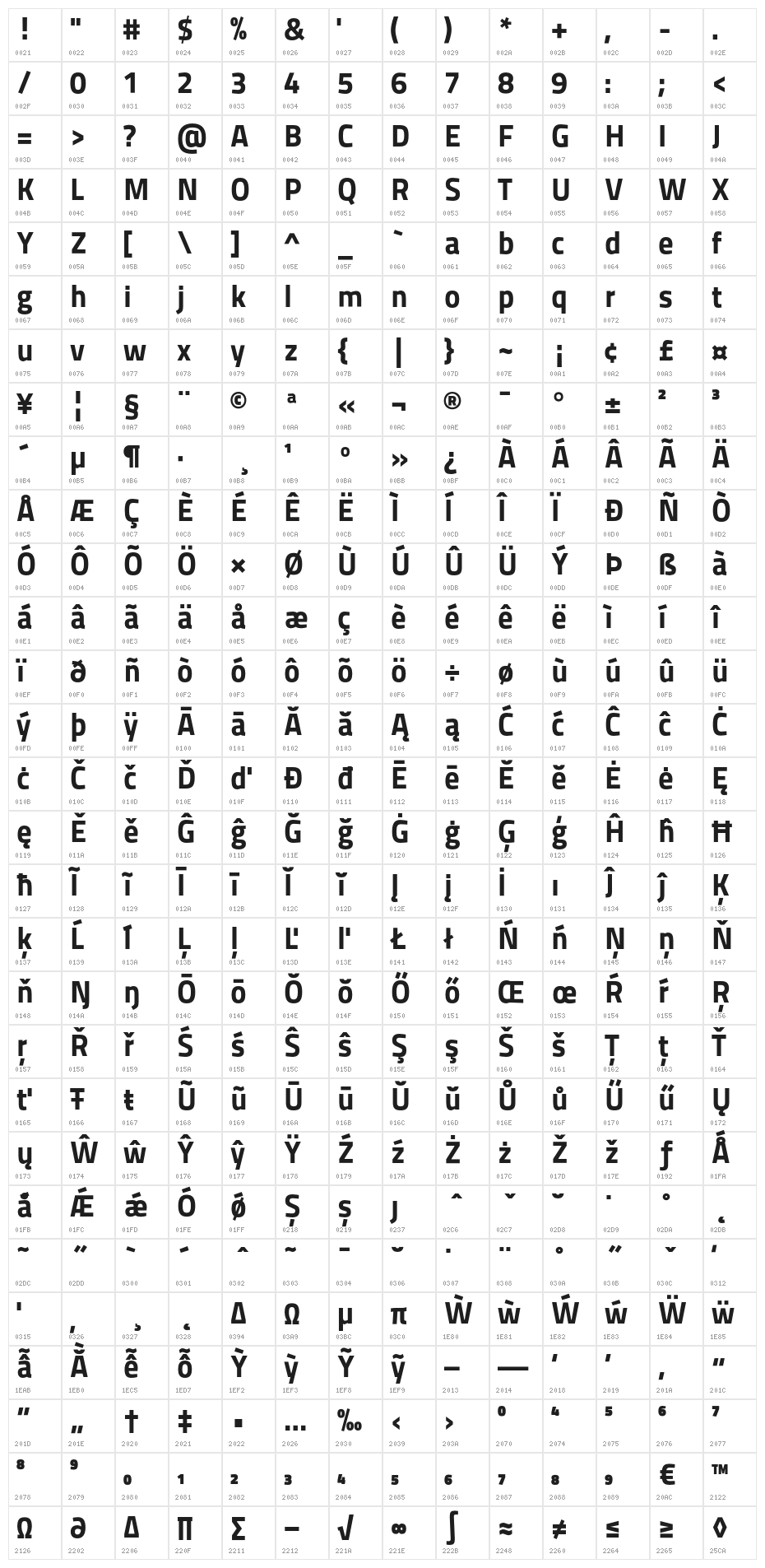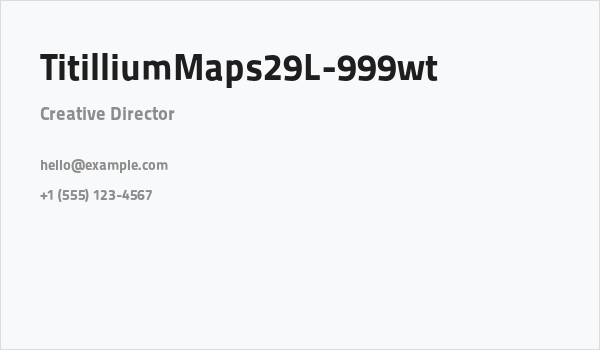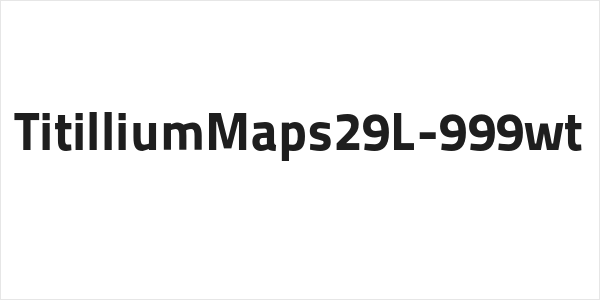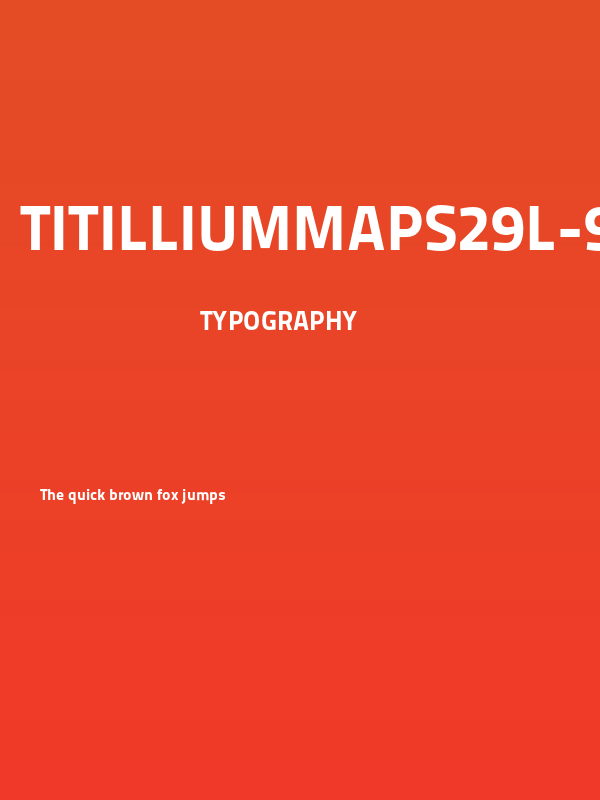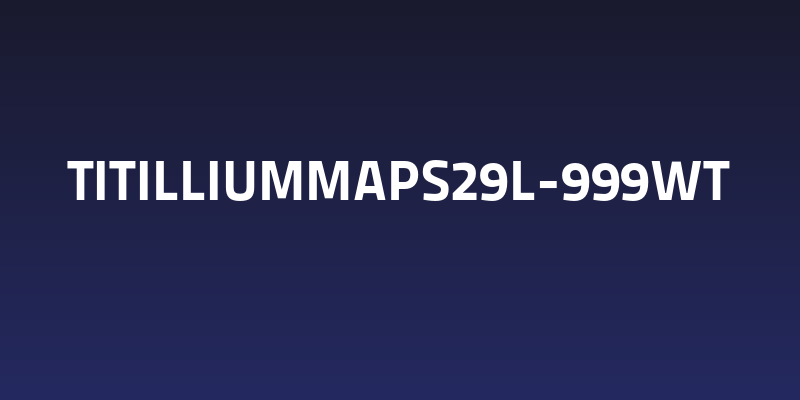
TitilliumMaps29L-999wt Font
TitilliumMaps29L-999wt Description
This font features a clean and modern sans-serif design with a strong geometric influence. The characters are well-proportioned, offering a balanced and harmonious appearance. The uppercase letters are bold and assertive, while the lowercase letters maintain a consistent weight, providing excellent readability. The numerals are clear and distinct, making them suitable for various applications. The special characters are designed to complement the overall style, ensuring versatility in use. This font's simplicity and clarity make it ideal for both digital and print media.
Proposed ProjectsIdeal for branding, web design, advertising, and editorial projects.